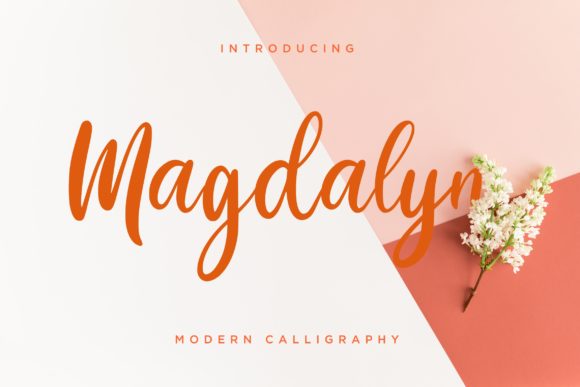
Immerse yourself in the captivating world of Magdalyn, a script font that dances across your screen with its graceful strokes. Born from the artistry of a brush pen, Magdalyn embodies the essence of handwritten elegance, ready to transform your creative visions into breathtaking realities.
Step into the world of fashion and let Magdalyn guide your designs to new heights of sophistication. Its flowing curves and delicate accents will lend an air of effortless allure to your website, capturing the attention of every discerning eye.
Magdalyn's versatility knows no bounds. Whether you're crafting exquisite wedding invitations that evoke the magic of the moment or designing eye-catching social media posts that demand attention, Magdalyn will become your trusted companion. Its adaptability will astound you as it effortlessly enhances every project it graces.
Unleash your creativity and let Magdalyn's charm ignite your imagination. Its enchanting style will weave its way into your designs, transforming them into works of art that resonate with your audience.
Don't settle for ordinary when you can embrace the extraordinary. Choose Magdalyn and embark on a creative journey where beauty and functionality intertwine. Let its elegant strokes inspire you, captivate your audience, and leave an unforgettable mark on the world.